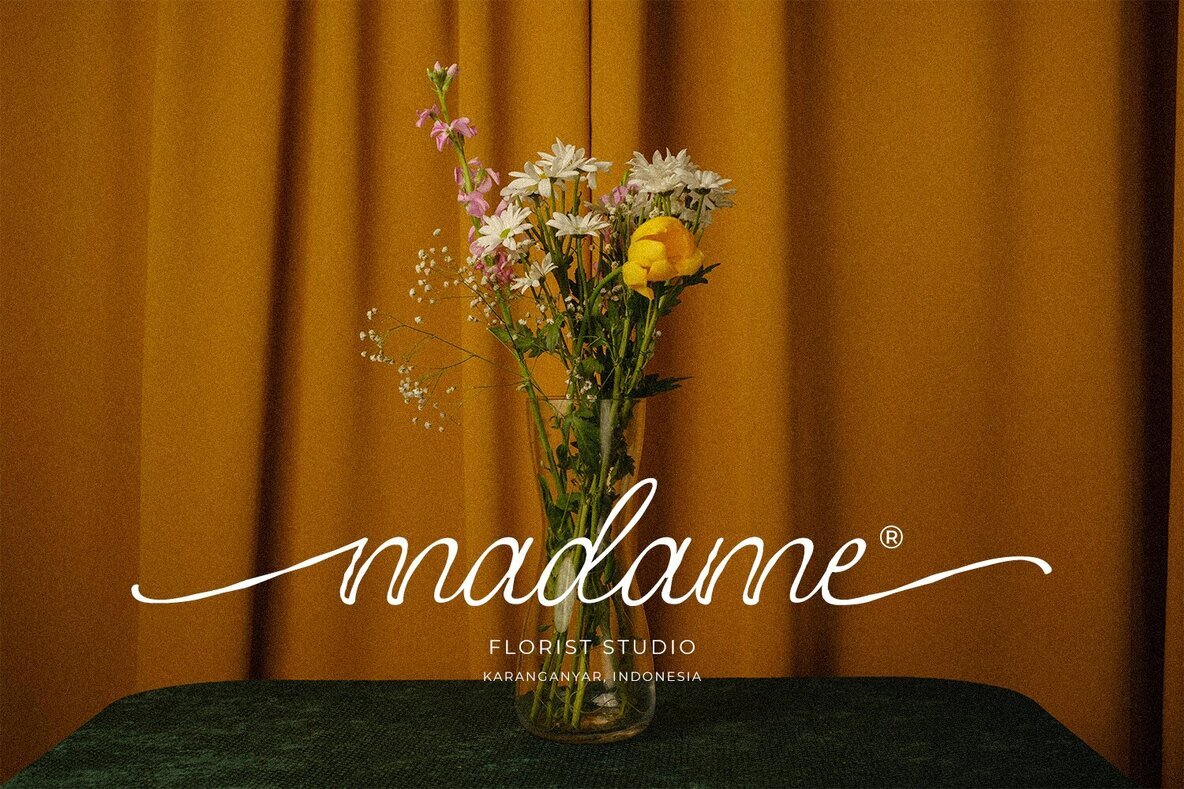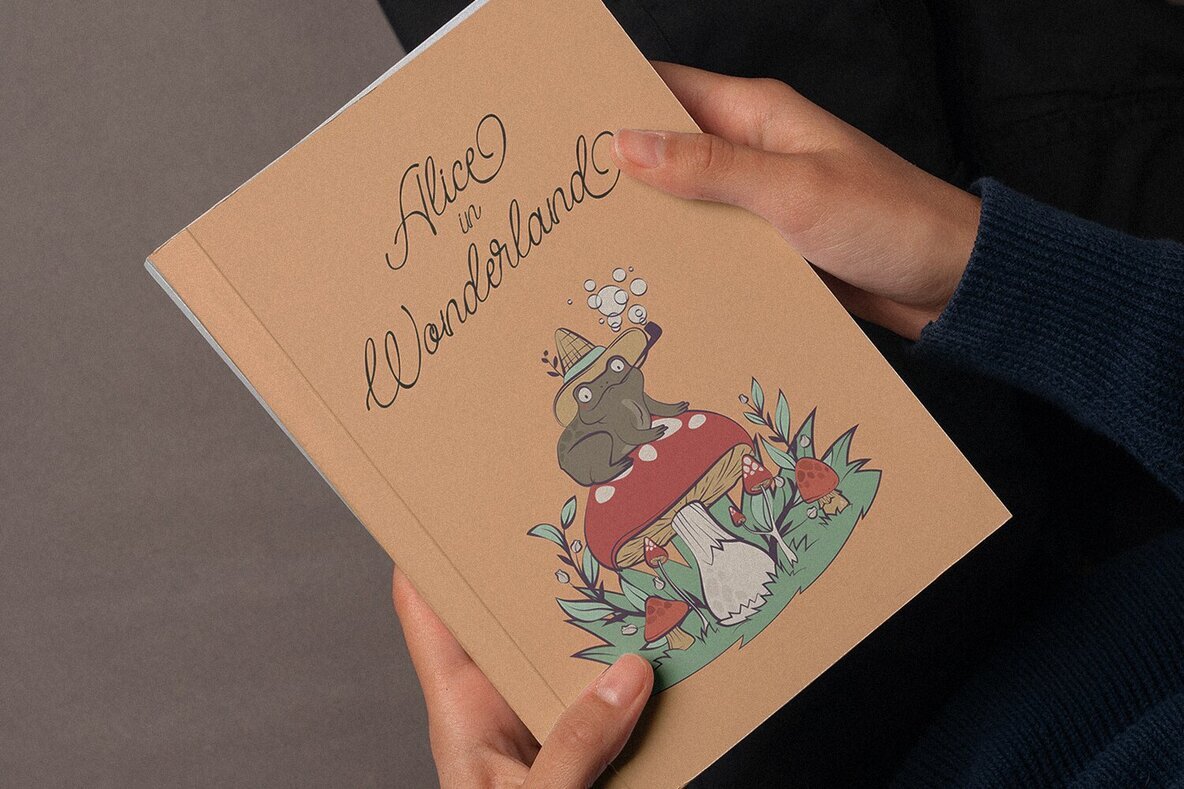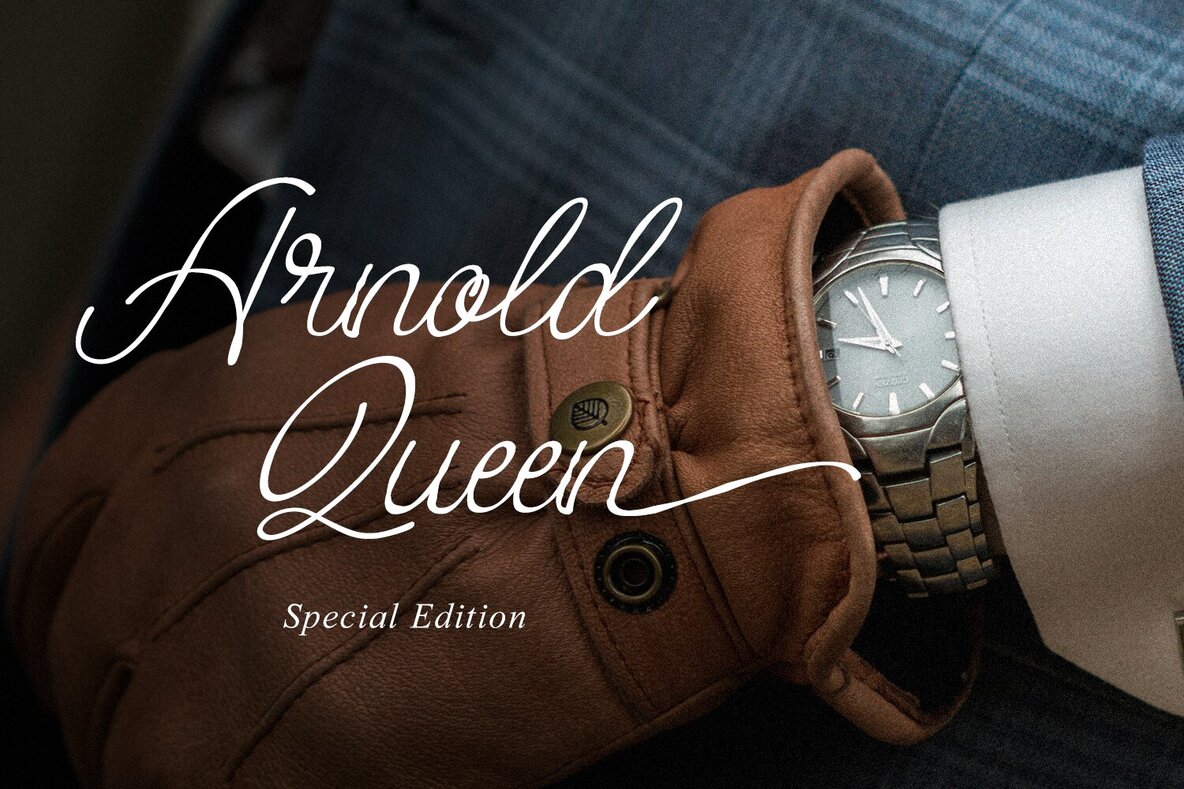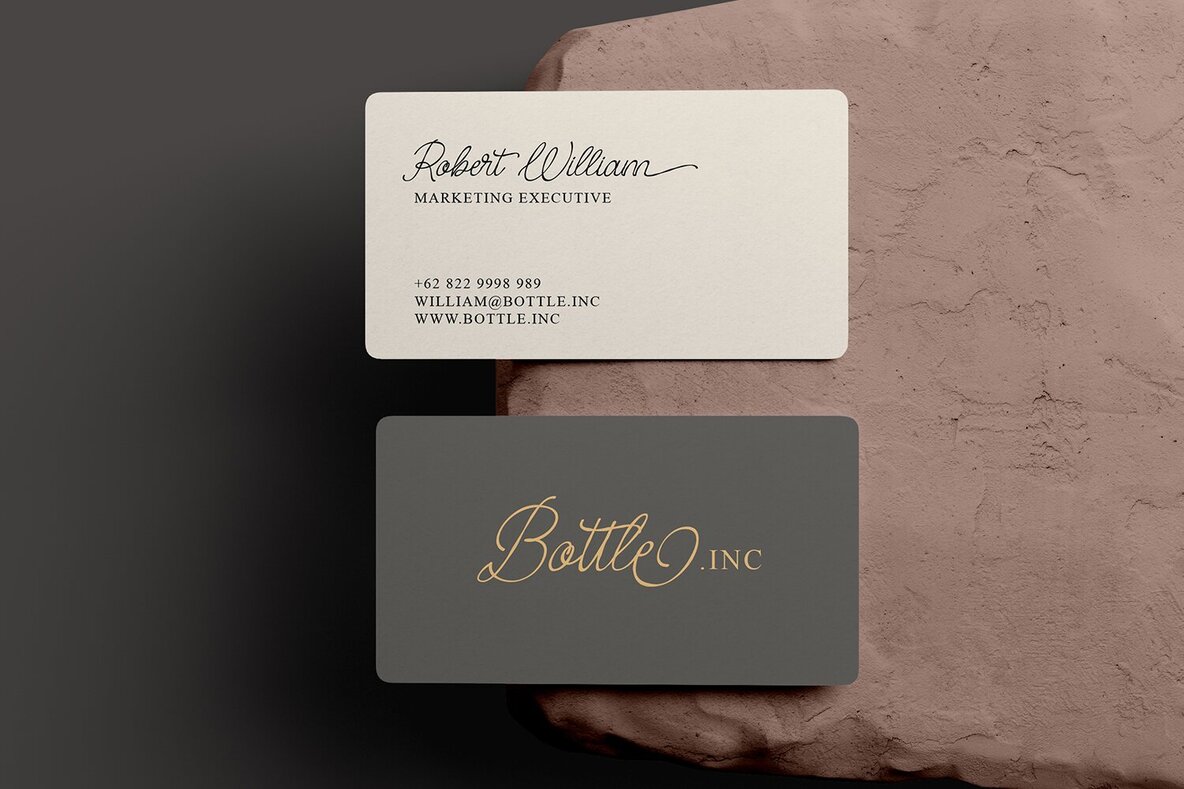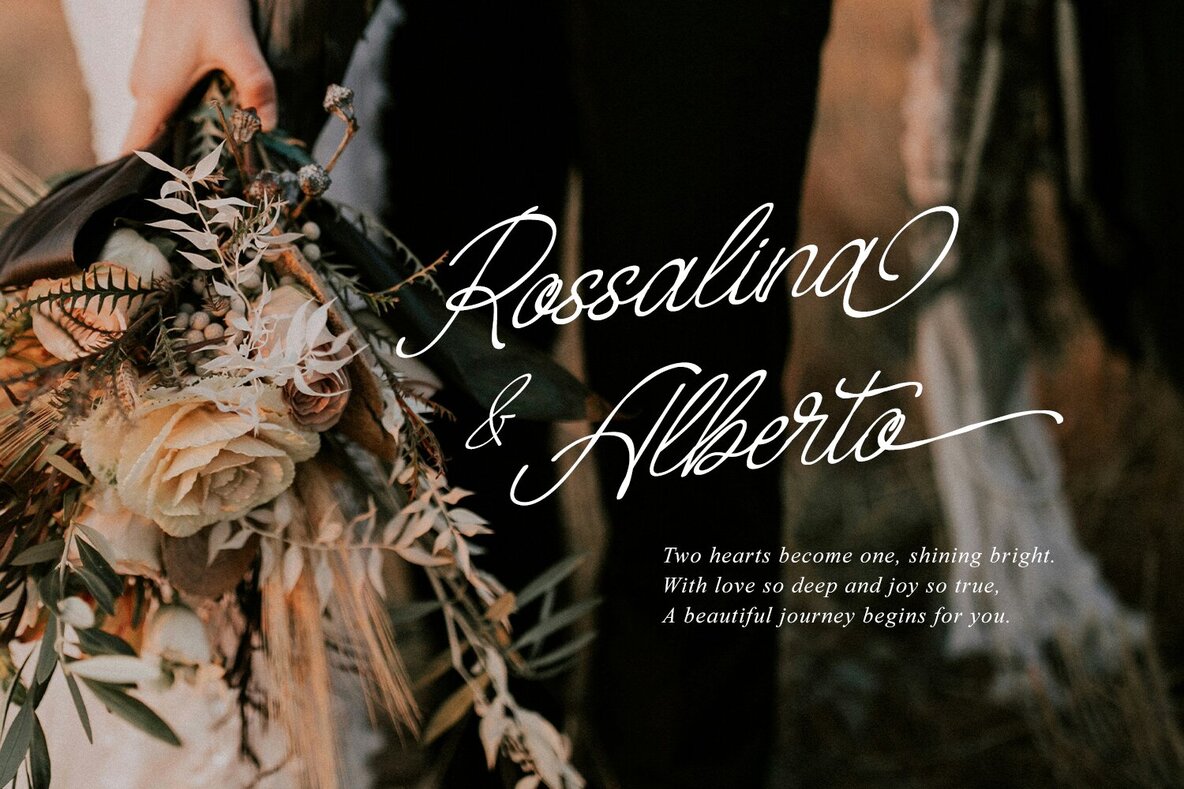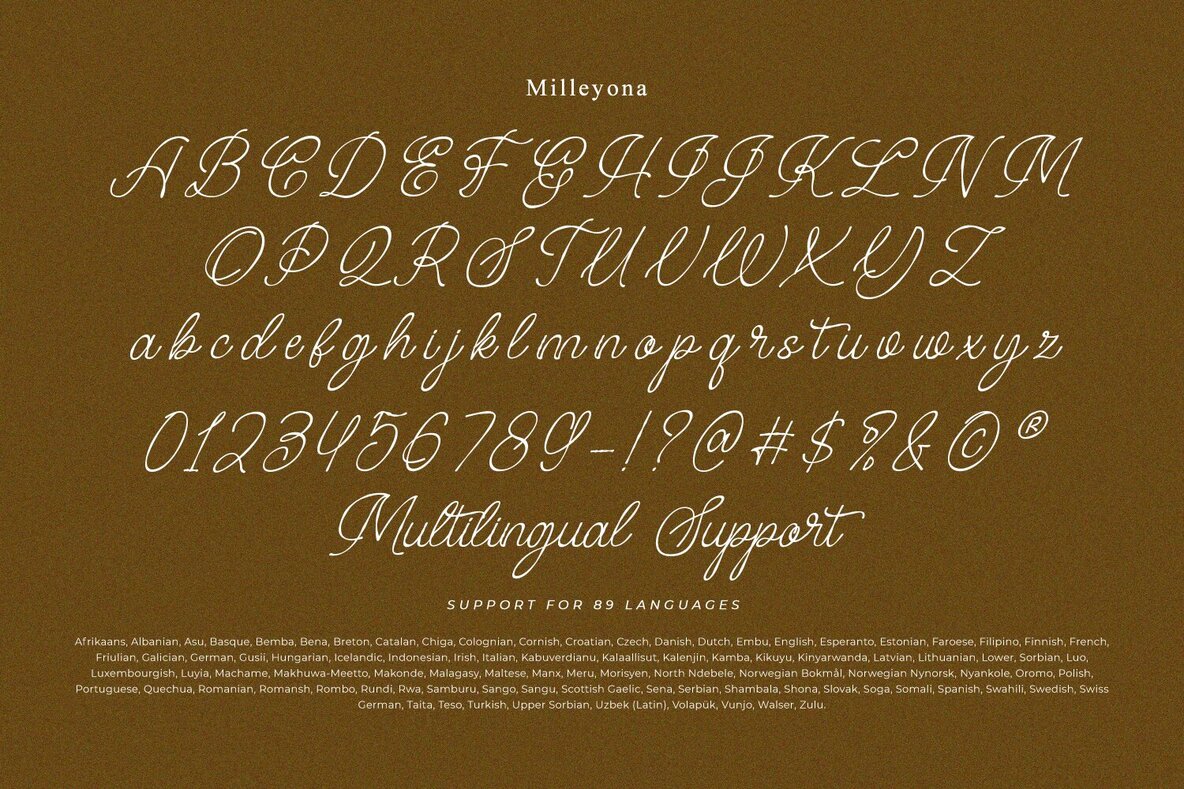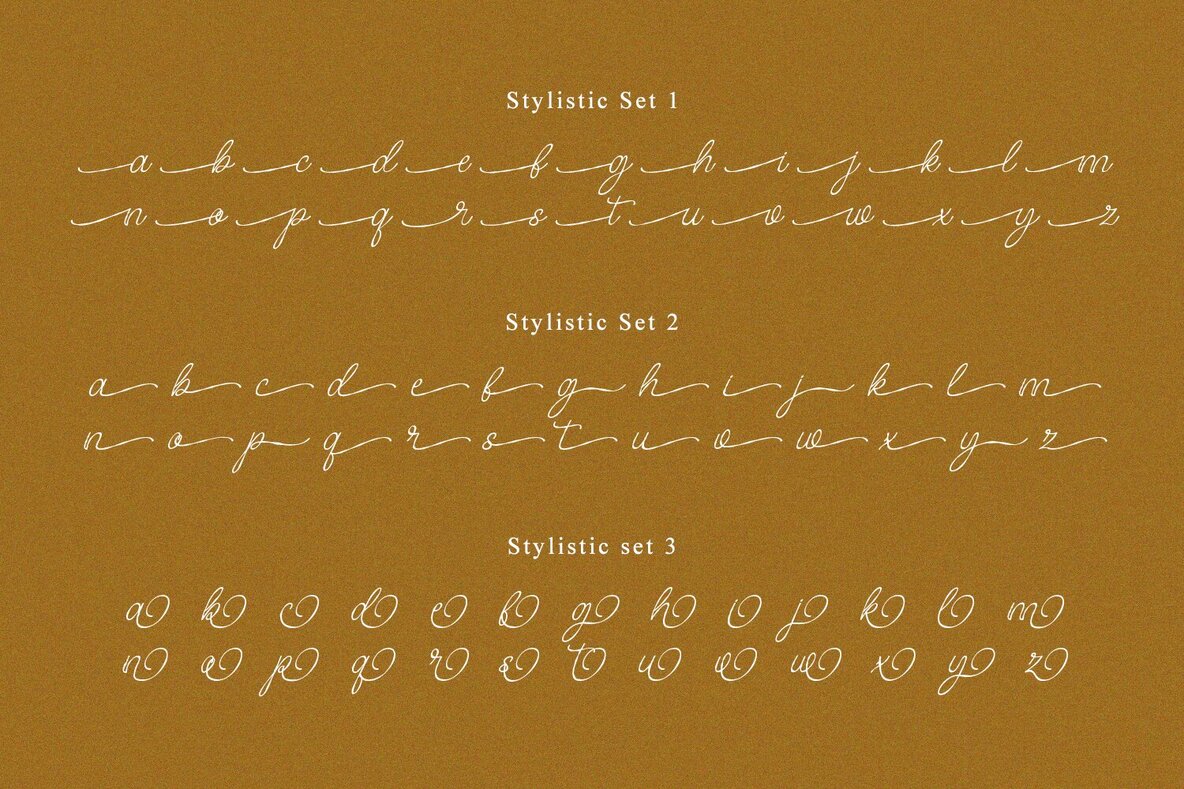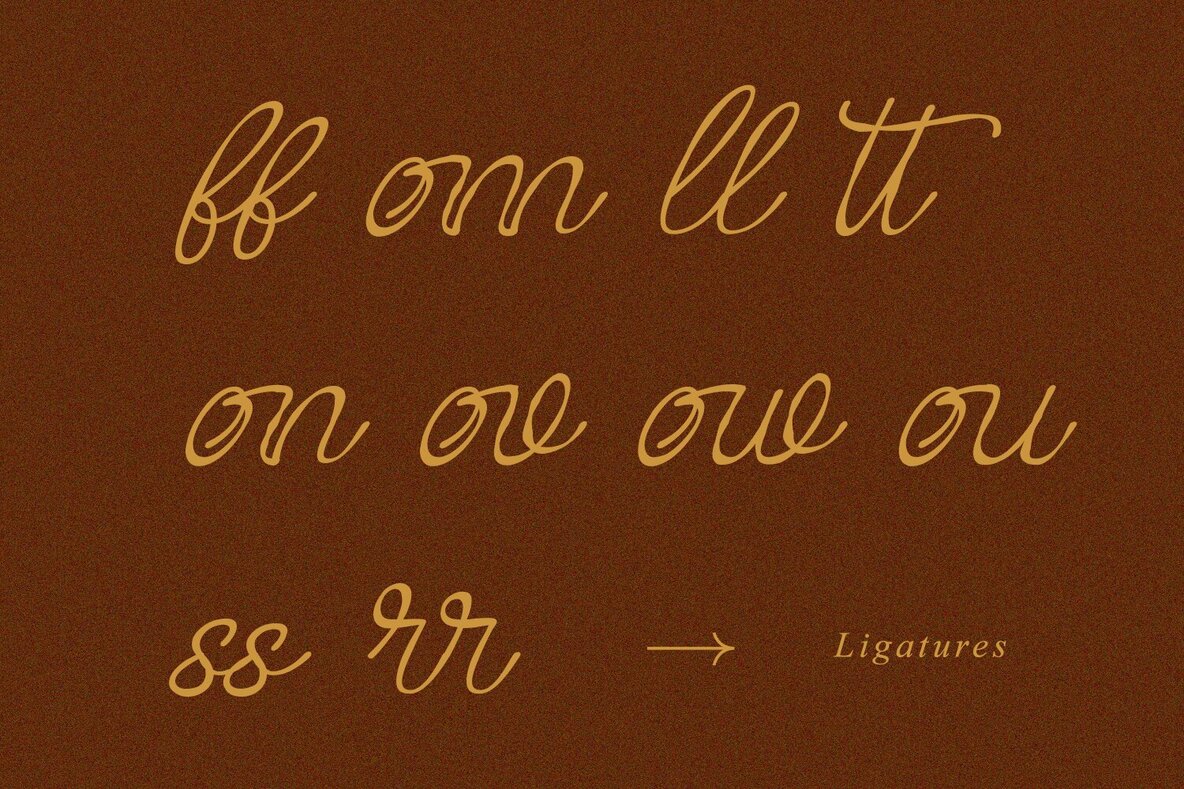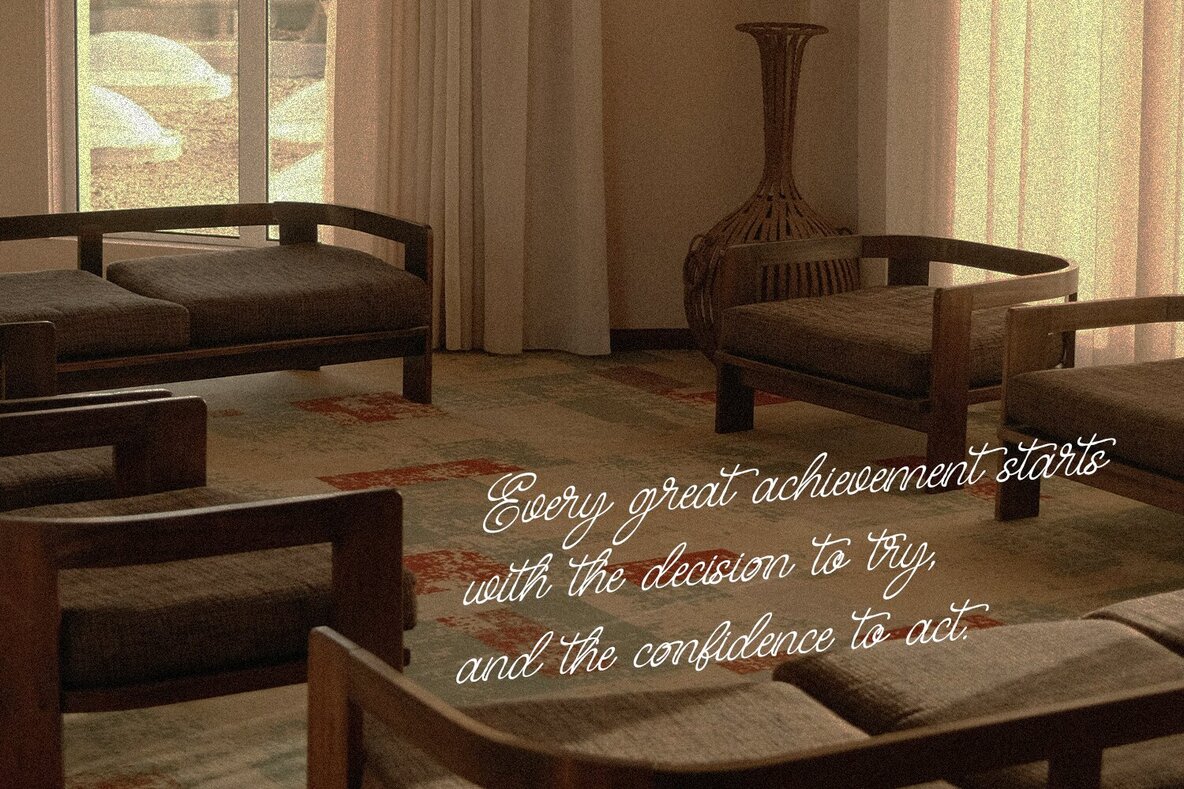
Milleyona Font
Milleyona Regular
Milleyona is a delicate and elegant handwritten font that exudes sophistication with its thin weight. The connected letters flow seamlessly, creating a smooth and continuous script. With fairly consistent letter proportions, Milleyona offers a harmonious and balanced appearance. In addition, enjoy the features here. Features: Milleyona fits in logos, posters, flyers, branding materials, print media, editorial layouts, and many more designs. Find out more ways to use this font by taking a look at the font preview.